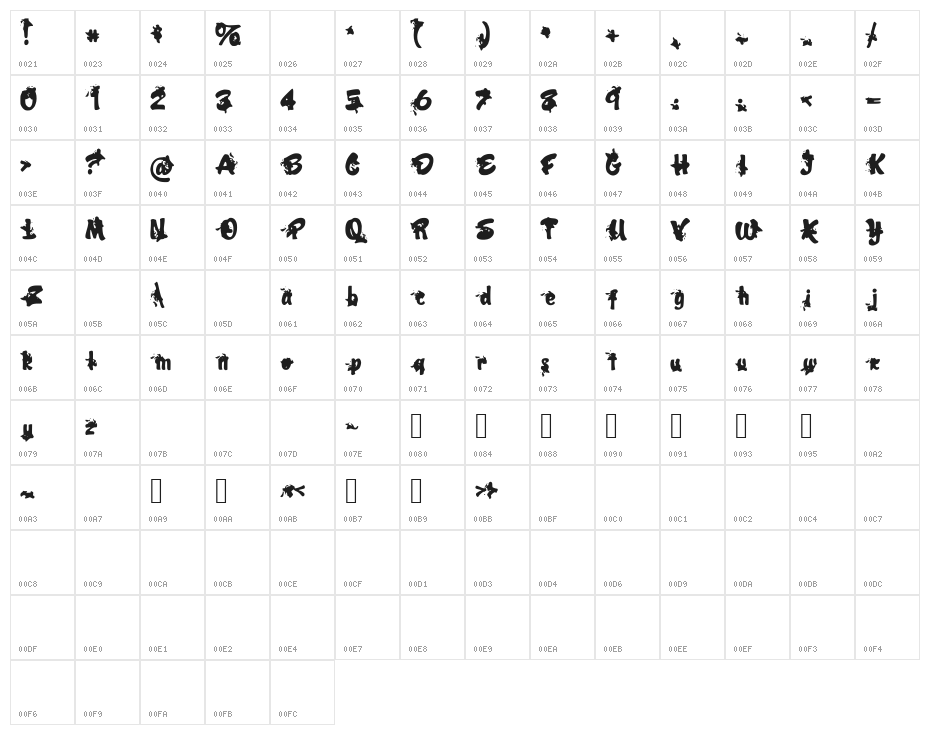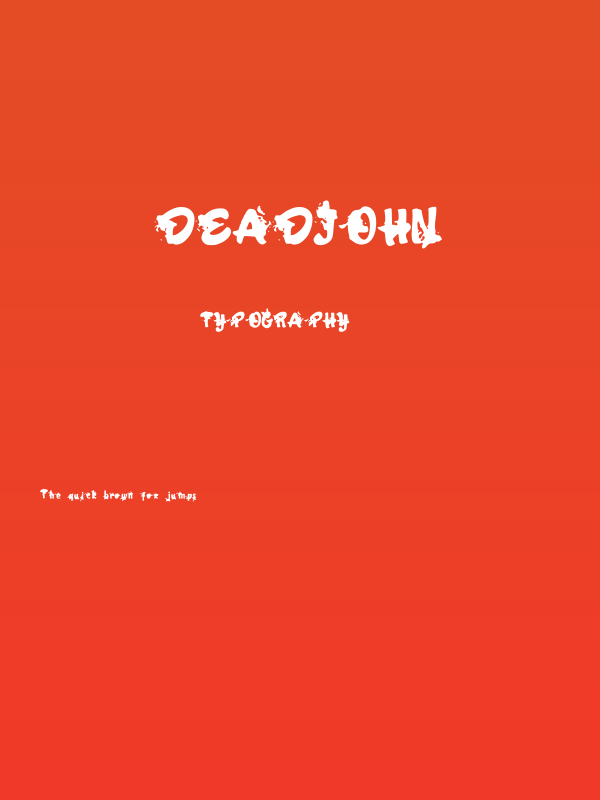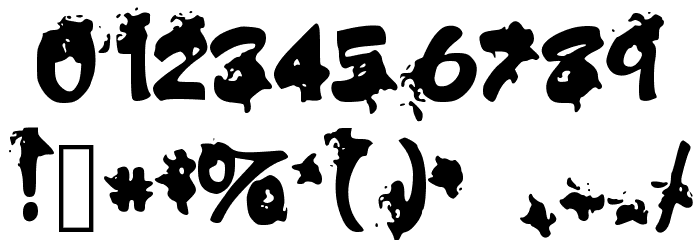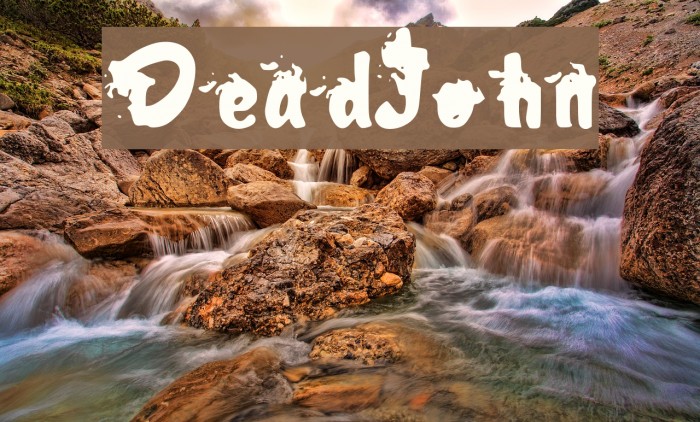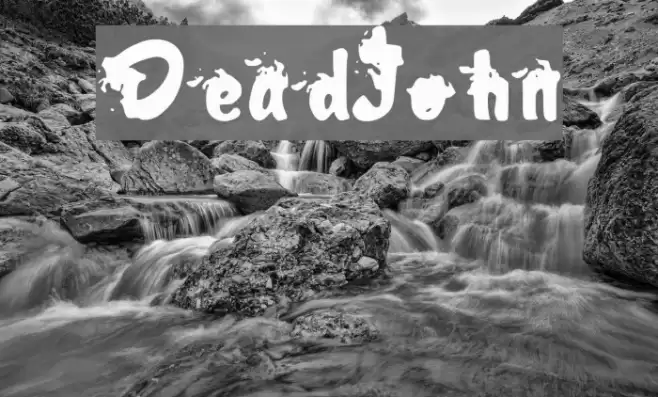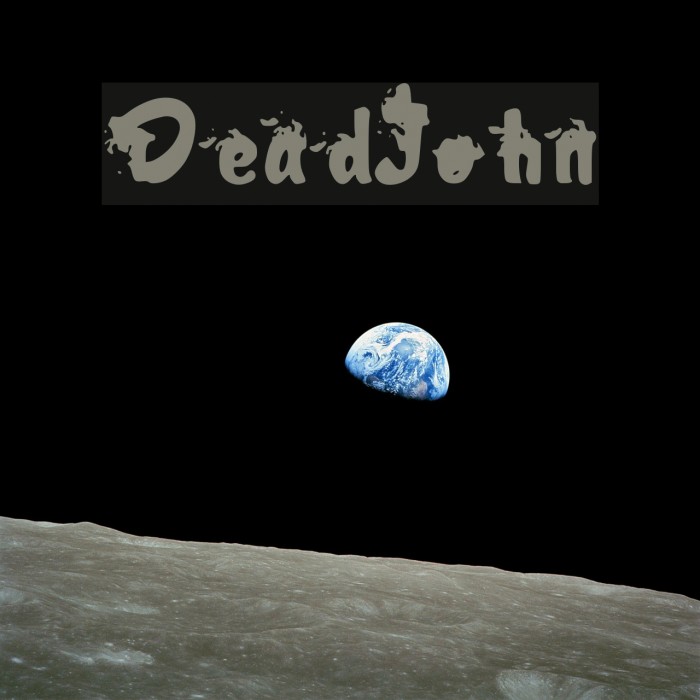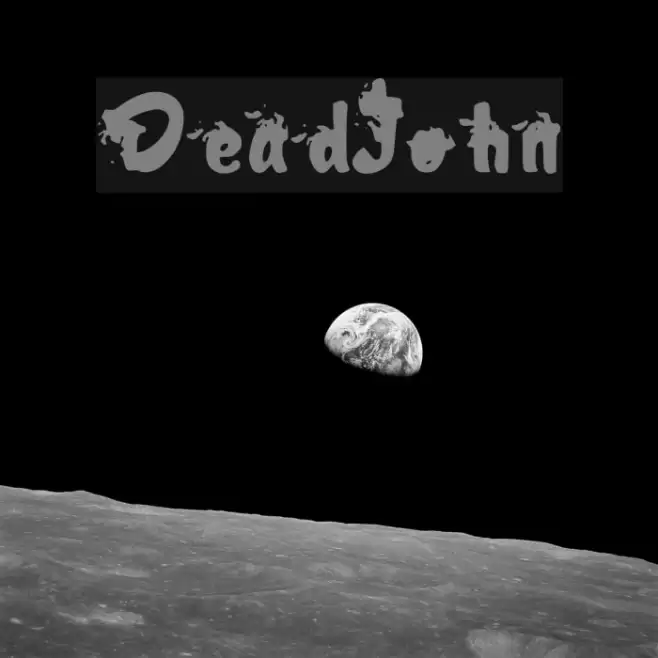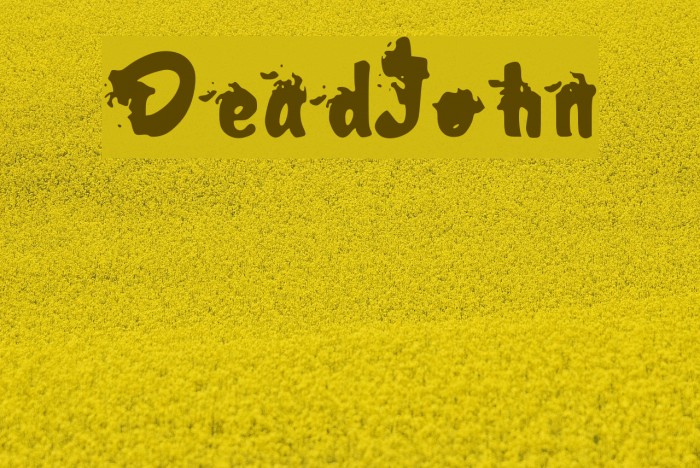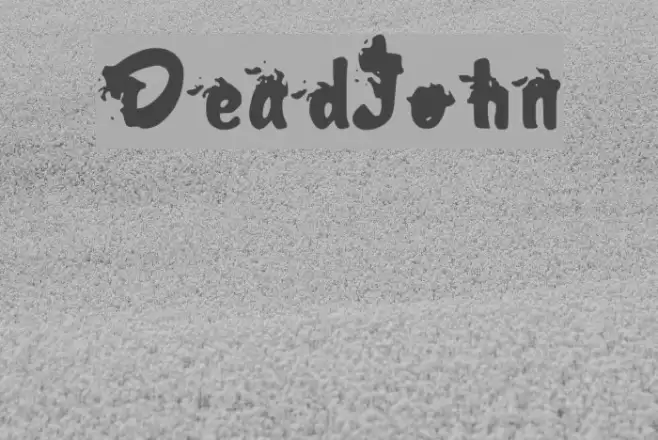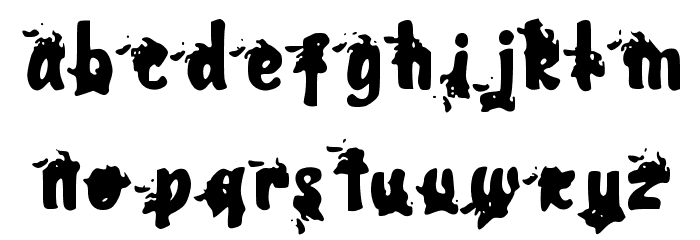
DeadJohn Font
DeadJohn Description
This font features a bold and dramatic style with a splattered, grunge effect that gives it a unique and edgy appearance. The characters are heavily stylized, with irregular edges and a distressed look that suggests a sense of chaos or decay. The uppercase and lowercase letters maintain a consistent theme, with each character appearing as if it has been splashed with ink or paint. The numbers and special characters follow the same design, ensuring a cohesive look throughout. This font is ideal for projects that require a bold statement or an unconventional aesthetic.
| Proposed Projects | Ideal for album covers, horror movie posters, edgy branding, and streetwear designs. |